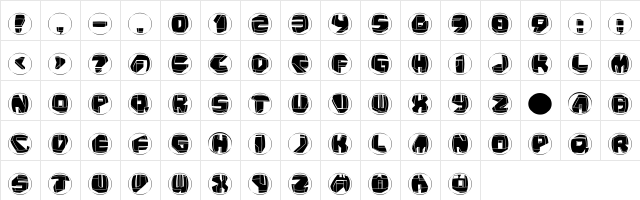
NeoPanRings Regular
Design Context for NeoPanRings Typeface
NeoPanRings is a composed and adaptable typeface that performs quietly and consistently across a wide range of design contexts.